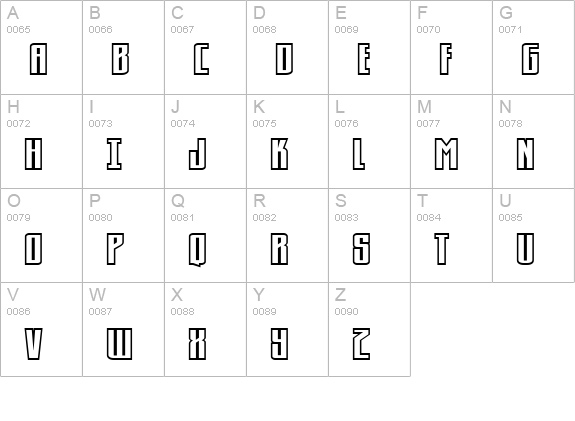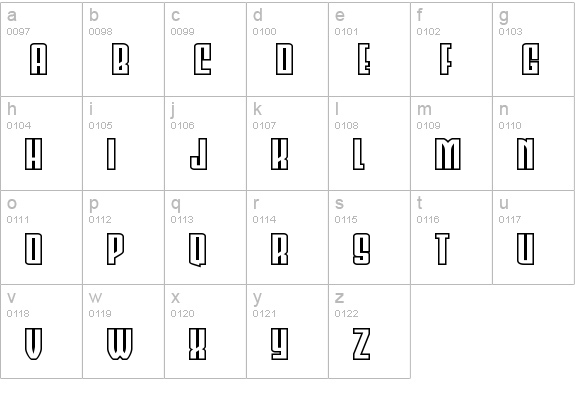
CCPhasesOnStun Font Details
Introducing CCPhasesOnStun font, a captivating and versatile typeface that is sure to leave a lasting impression. With its bold and modern design, this font is perfect for a wide range of creative projects, from branding to advertising to social media graphics. The unique character shapes and stylish letterforms of CCPhasesOnStun font will bring a touch of sophistication to any design. Best of all, CCPhasesOnStun font is freely available to download at FontsMarket.com. Whether you're a professional designer looking for a fresh new font to add to your collection or a hobbyist looking to spice up your projects, CCPhasesOnStun font is the perfect choice. Don't miss out on this fantastic opportunity to enhance your designs with this stunning font. Download CCPhasesOnStun font today and let your creativity shine!